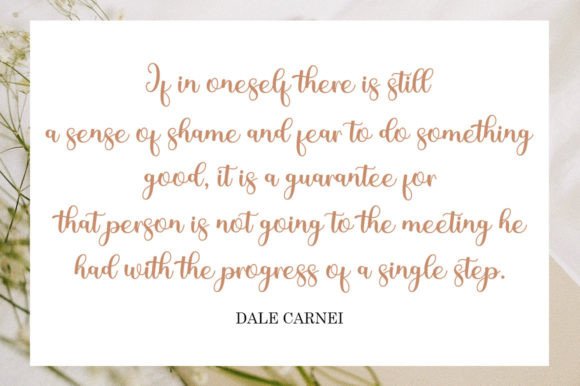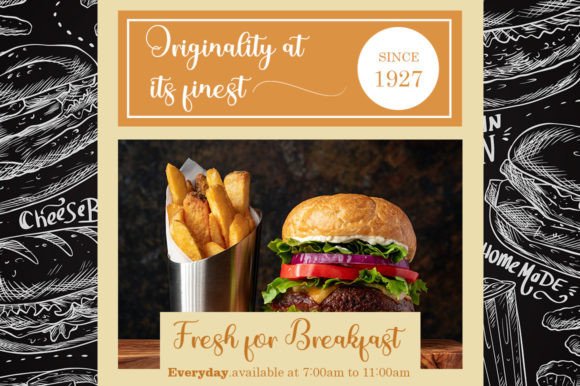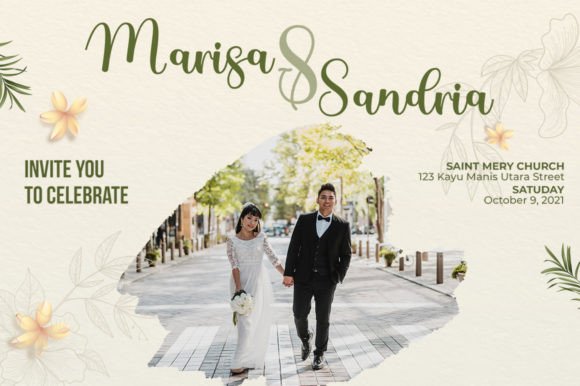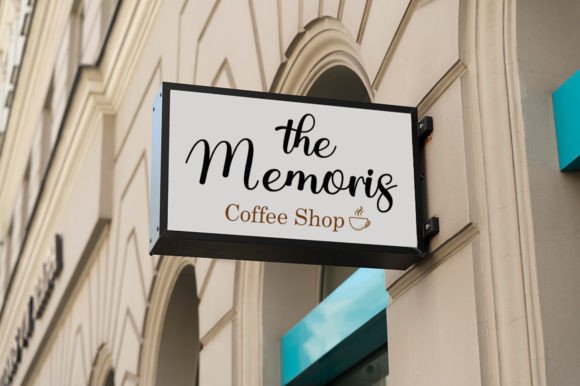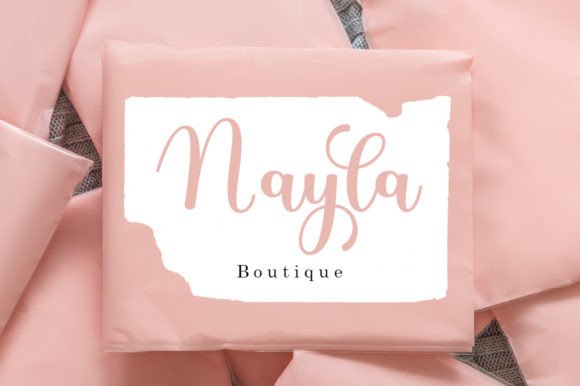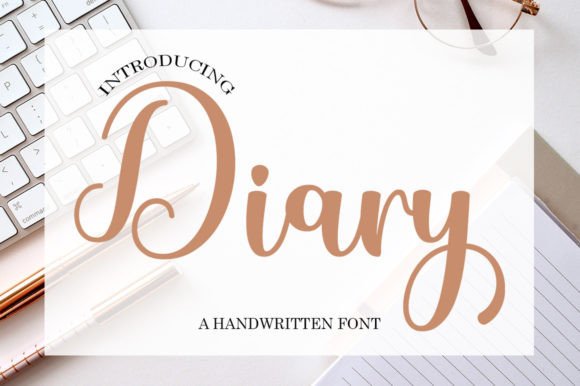
Introducing Diary Font: The Romantic and Sweet Calligraphy Typeface
Are you looking for a font that adds a touch of luxury and romance to your design projects? Look no further than Diary Font, a beautiful calligraphy typeface that is sure to make your designs stand out. With its dancing characters and elegant ligatures, Diary Font is the perfect choice for designers and crafters who want to add a touch of sophistication to their work.
What is Diary Font?
Diary Font is a romantic and sweet calligraphy typeface that features characters that dance along the baseline. This unique design element gives the font a playful and whimsical feel, making it perfect for designs that require a touch of elegance and luxury. The font is PUA encoded, which means that you can access all of the amazing glyphs and ligatures with ease.
Key Features of Diary Font
- PUA Encoding: Diary Font is PUA encoded, which means that you can access all of the amazing glyphs and ligatures with ease. This makes it easy to use the font in your designs and ensures that you can get the most out of its features.
- Dancing Characters: The characters in Diary Font dance along the baseline, giving the font a playful and whimsical feel. This unique design element makes the font perfect for designs that require a touch of elegance and luxury.
- Elegant Ligatures: Diary Font features elegant ligatures that add a touch of sophistication to your designs. The ligatures are carefully crafted to ensure that they flow smoothly with the rest of the text.
- Luxury Spark: Diary Font is designed to add a luxury spark to any design project. Whether you’re working on a branding project, a wedding invitation, or a packaging design, Diary Font is sure to make your designs stand out.
Who is Diary Font for?
Diary Font is perfect for designers and crafters who want to add a touch of elegance and luxury to their designs. The font is ideal for:
- Graphic Designers: Diary Font is perfect for graphic designers who want to create stunning branding projects, logos, and marketing materials.
- Stationery Designers: The font is ideal for stationery designers who want to create beautiful wedding invitations, greeting cards, and other paper crafts.
- Crafters: Diary Font is also perfect for crafters who want to add a touch of elegance to their DIY projects, such as scrapbooking, journaling, and card making.
- Experiment with Different Sizes: Diary Font looks great in a variety of sizes, from large headings to smaller body text. Experiment with different sizes to see what works best for your design.
- Play with Ligatures: The ligatures in Diary Font are designed to add a touch of elegance to your designs. Experiment with different ligatures to see what works best for your project.
- Pair with Other Fonts: Diary Font pairs well with a variety of other fonts. Experiment with different font combinations to see what works best for your design.
Diary Font is a beautiful calligraphy typeface that is sure to add a touch of luxury and romance to your design projects. With its dancing characters, elegant ligatures, and PUA encoding, Diary Font is the perfect choice for designers and crafters who want to create stunning designs. Whether you’re working on a branding project, a wedding invitation, or a packaging design, Diary Font is sure to make your designs stand out.